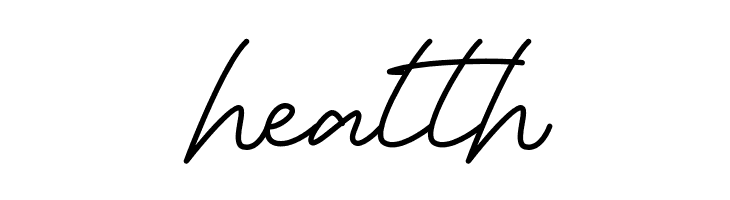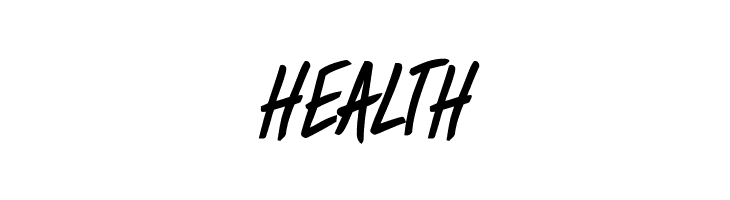
Cursive handwriting font with a personal touch.
Elegant cursive handwriting font.
Casual handwritten font with a friendly style.
Playful handwritten font with a whimsical style.
Bold, playful handwritten font.
Casual handwritten script font.
Playful, bold handwritten font.
Playful handwritten font with tall, narrow letters.
Casual handwritten font with rounded, playful forms.